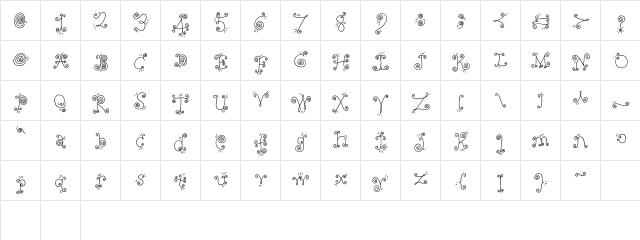
Fancy Nancy Regular Font Preview
Fancy Nancy Regular
Fancy Nancy Regular Font Details
Design Context for Fancy Nancy Typeface
Fancy Nancy is a composed and adaptable typeface that performs quietly and consistently across a wide range of design contexts.